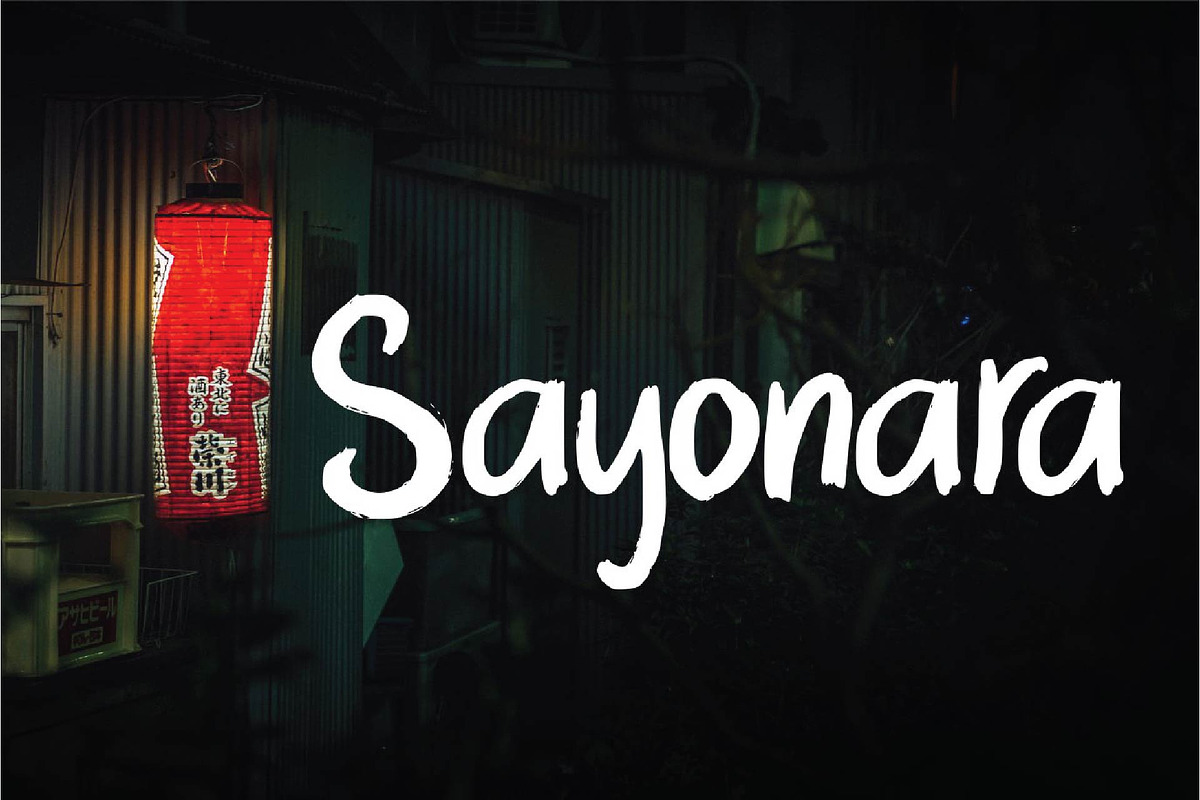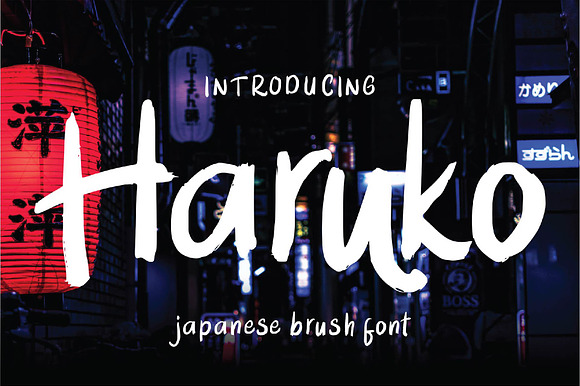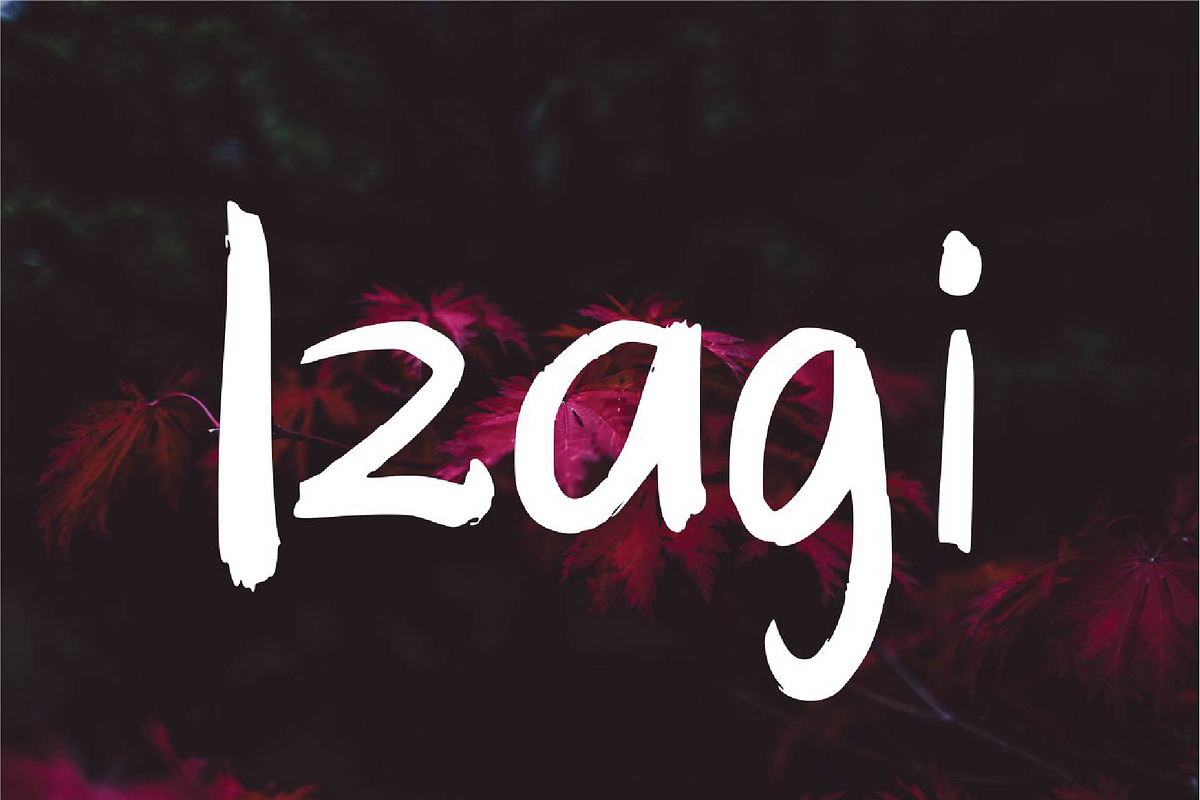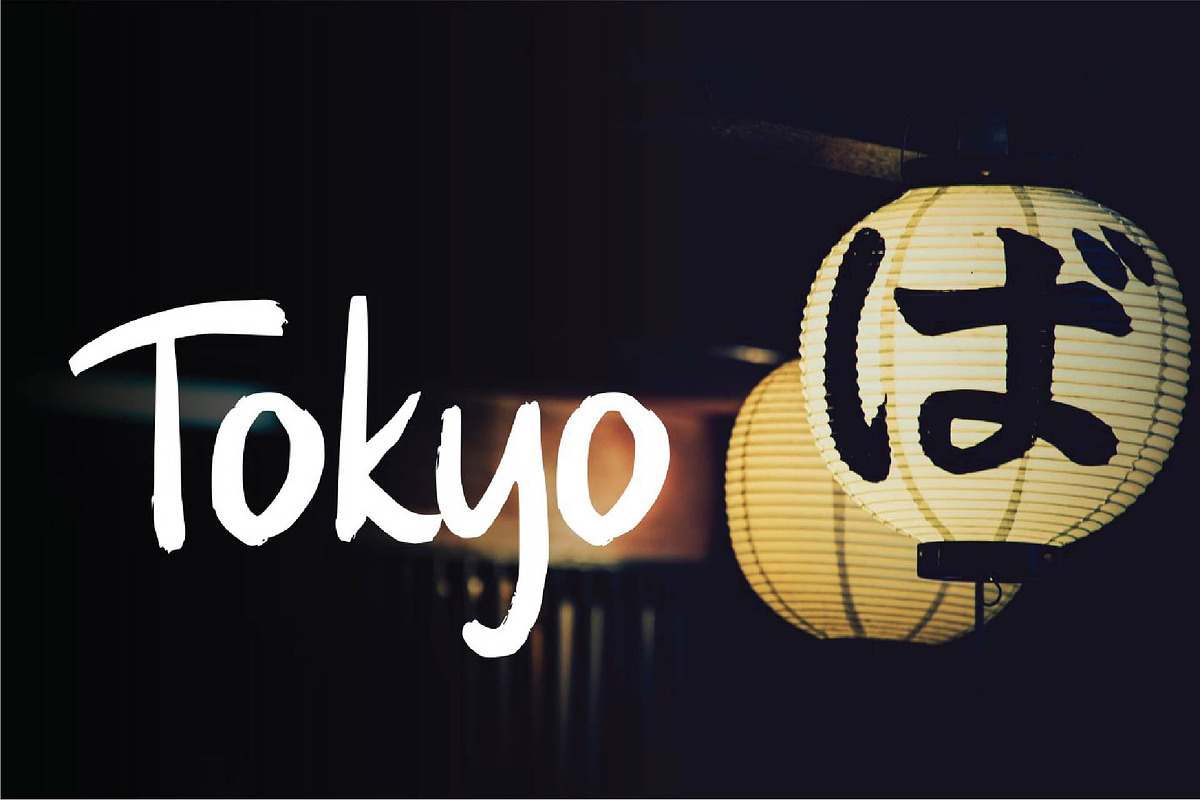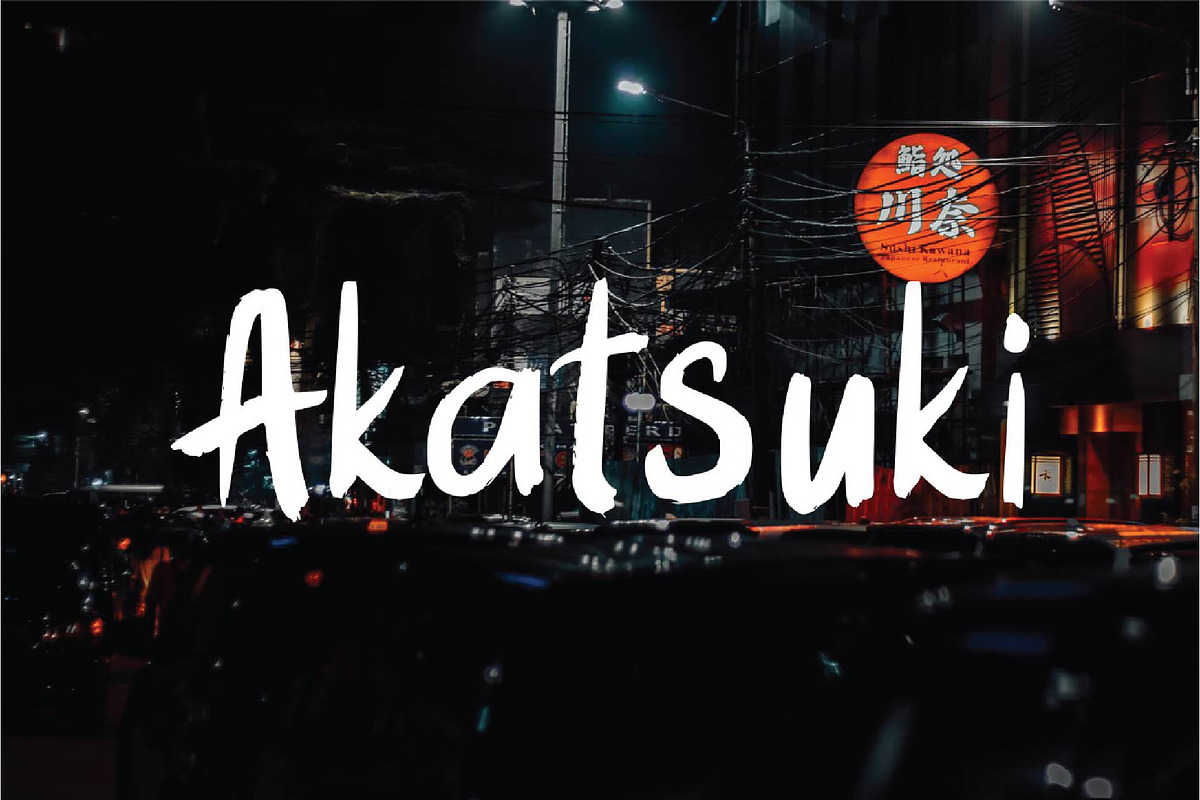
Haruko - Brush Font
Haruko - Brush Font with a calligraphy style, So beautiful on invitation like greeting cards, branding materials, business cards, quotes, posters, and more!
The alternative characters were divided into several features such as Stylistic Sets, Stylistic Alternates, Contextual Alternate, SWASH and Ligature.
- Alternates and Ligatures
- Fonts include Multilingual Support